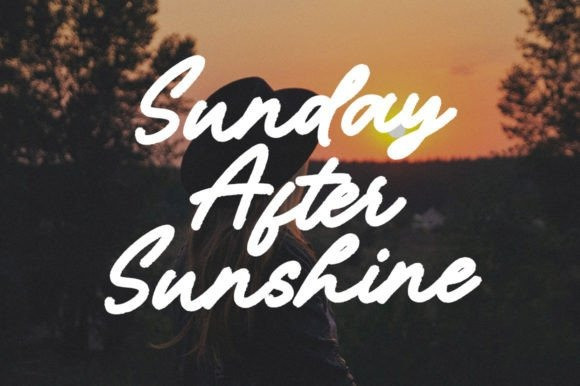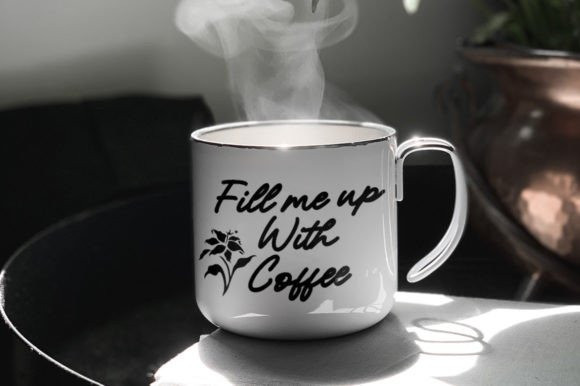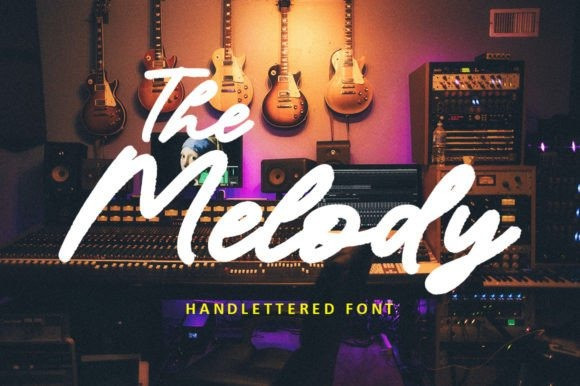
The Melody Font
The Melody Font is a fun yet elegant script font with lots of energy. It is perfect for logos, printed quotes, invitations, cards, product packaging, headers, weddings, and anything else you can imagine. Add it now to your creative projects, and It is guaranteed to make your text stand out.